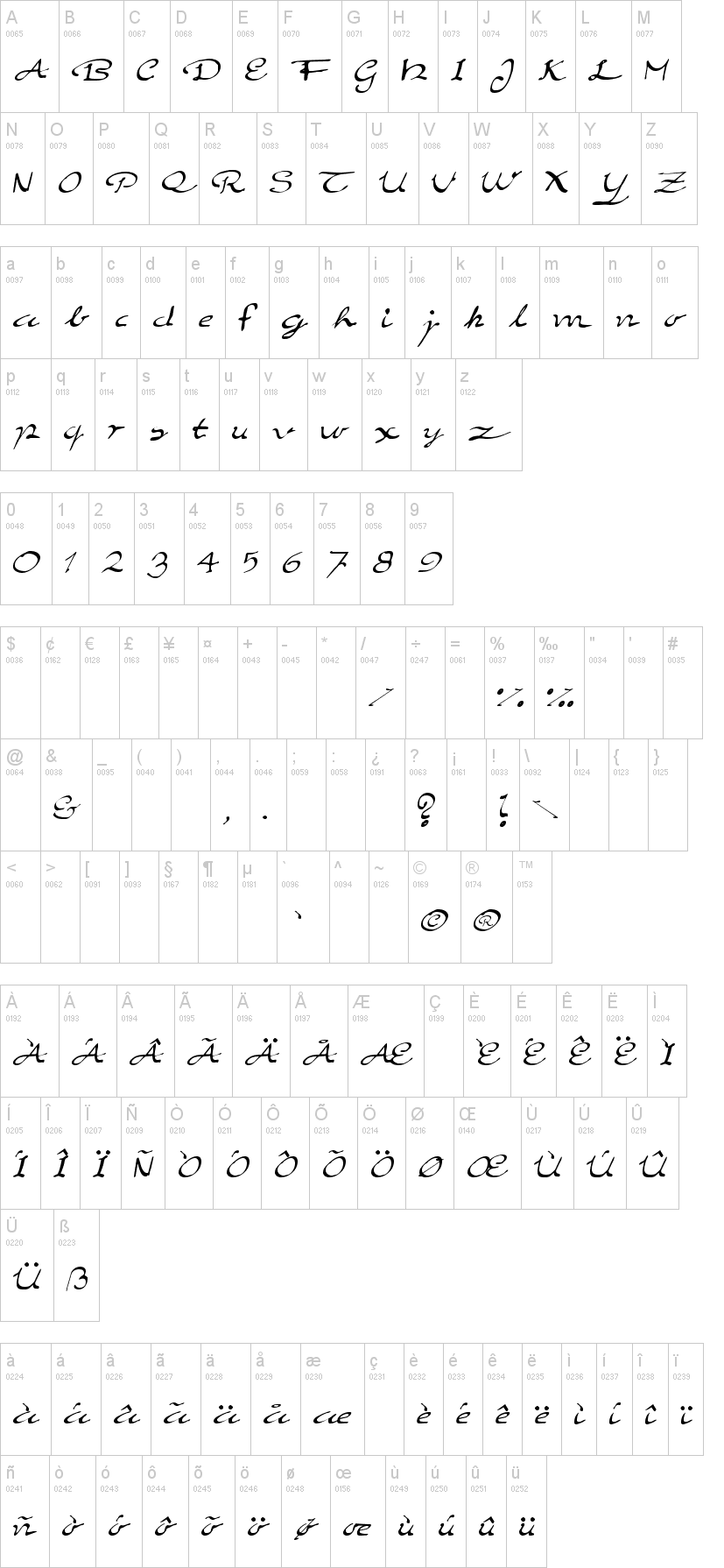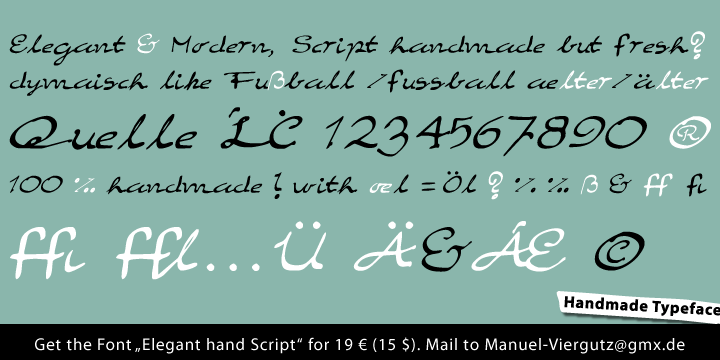
Note of the authorHeadline Font / Display Font / Raw Handwritten Script Font "Elegant Hand Script" with 1 stlye (regular) & over 130 glyphs
inkl. accents &